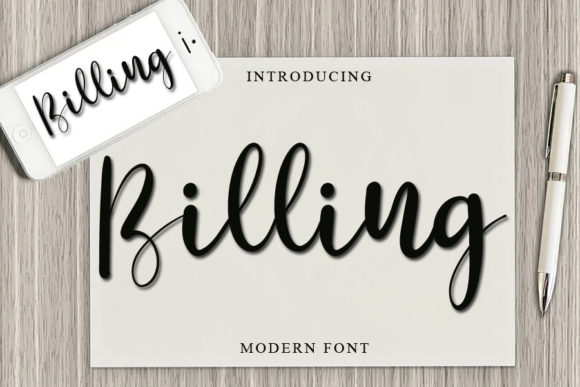
The Power of Billing Font: Elevate Your Designs with Fresh and Beautiful Typography
A Personal Review of Billing Font
- ✨ Fresh and beautiful design that’s perfect for a wide range of projects
- ✅ Simple and unique, making it stand out from more common fonts
- 💻 Highly versatile, suitable for digital and print designs
- 👍 Excellent for body text and headings, providing clarity and style
- 🤔 Limited availability of stylistic alternates, which might restrict creative variations
- ⚠️ Not ideal for very long-form text due to its elegant but somewhat ornate nature
The Inspiration Behind Billing Font
Every font has a story behind it. Billing Font was inspired by the need for a fresh and versatile typeface that could bridge the gap between digital and print designs. Its creator aimed to craft a font that was not only beautiful but also highly legible across various applications. The result is a font that feels both contemporary and timeless.
| Font Name | Billing Font |
| Author | ABBAsalam |
Q: Is Billing Font suitable for body text?
A: Yes, Billing Font is suitable for body text, especially in digital and print designs where clarity and style are important. However, for very long-form text, a more straightforward sans-serif font might be more appropriate.
Q: Does Billing Font support OpenType features?
A: Yes, Billing Font supports OpenType features, including glyphs and stylistic alternates. This allows for a range of creative expressions and customizations in compatible software.